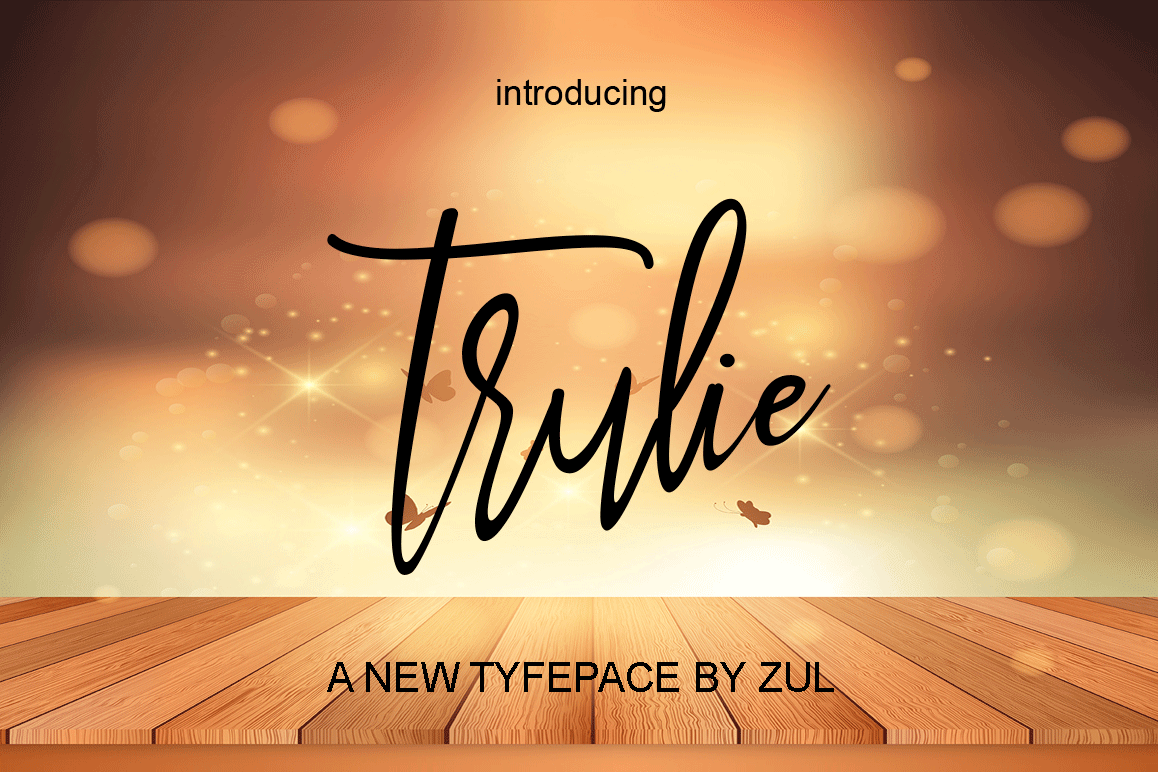
trulie
TRULIE
Introducing: Trulie! a simple, fun and cute font for beautiful design. Trulie is great for branding design, invitation designs, logo, product display, product packaging  or simply quote and design with stylish text overlay to any background image.
- uppercase & lowercase letters
- numbers & punctuation
- some alternate glyph
- multi language support